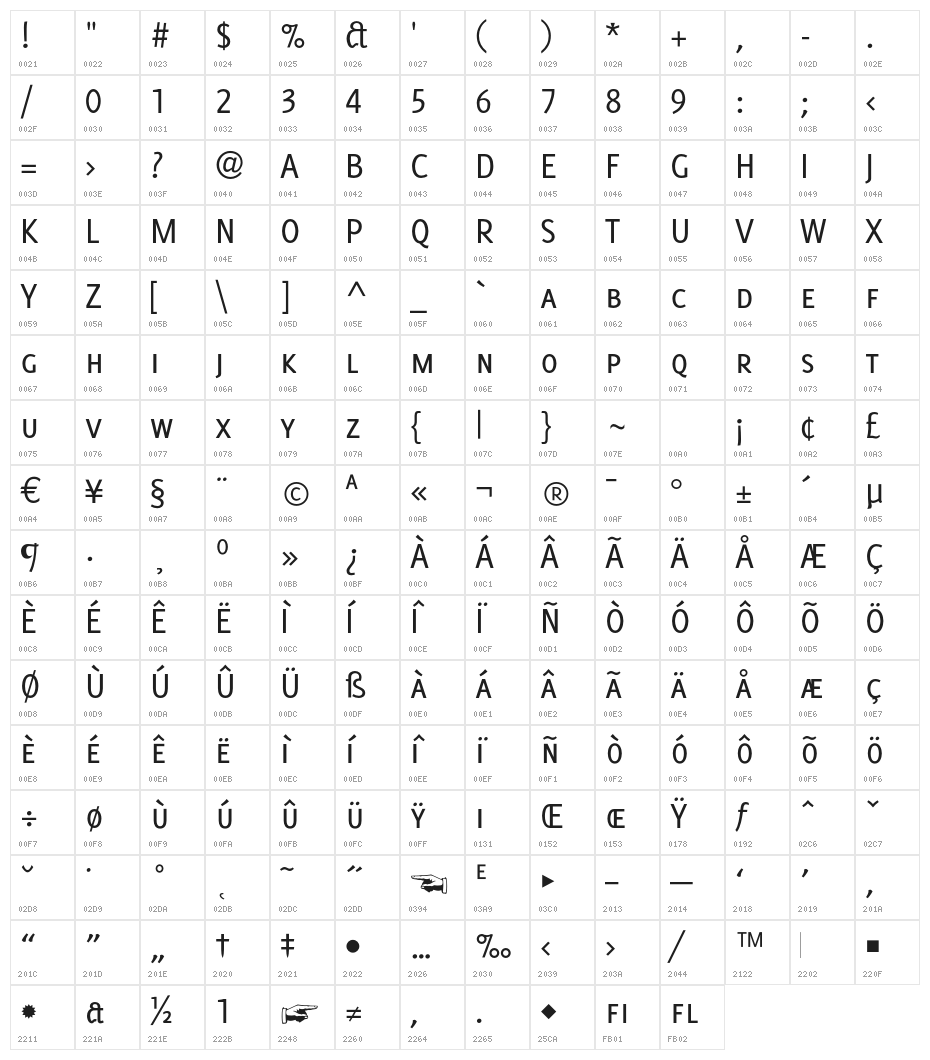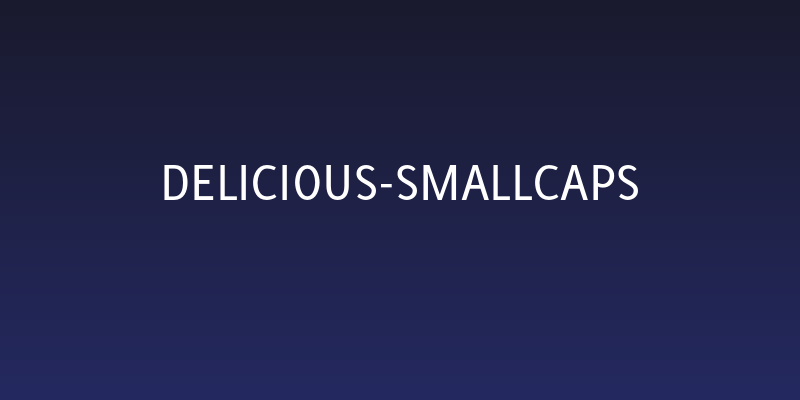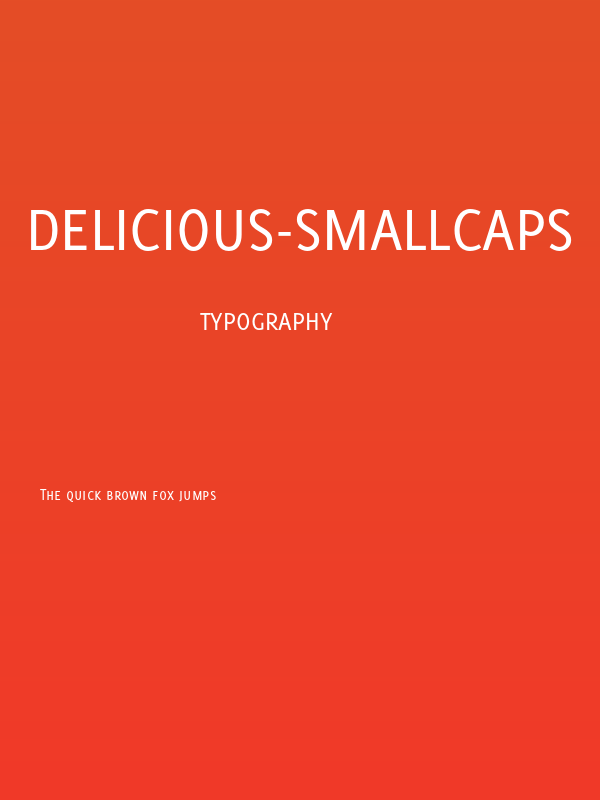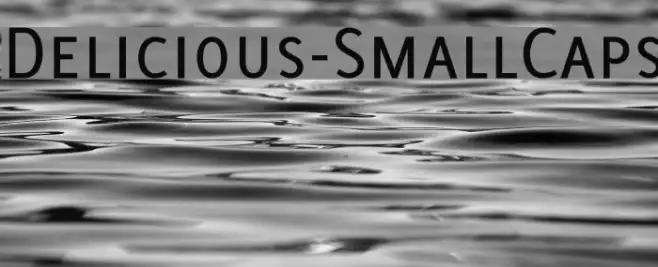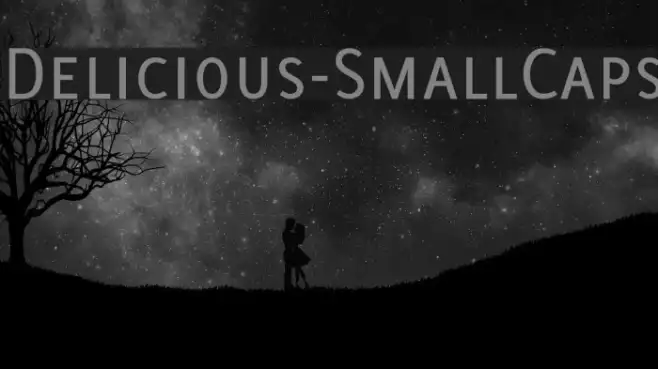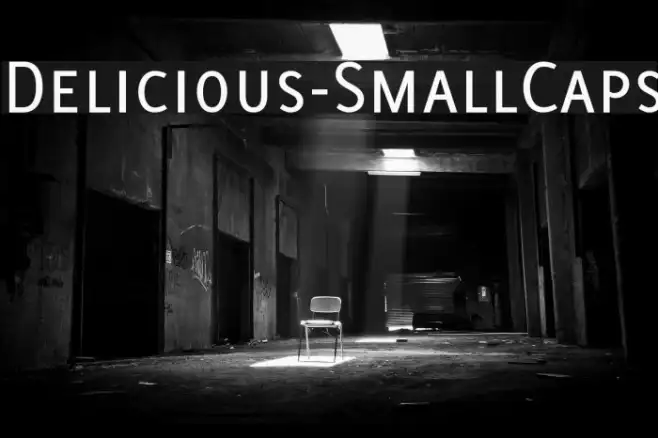
Delicious-SmallCaps Font
Delicious-SmallCaps Description
This font features a clean and modern design with a focus on simplicity and readability. The characters are uniformly structured, offering a balanced and harmonious appearance. The uppercase letters are bold and assertive, while the lowercase letters maintain a consistent style that complements the overall aesthetic. The numerals are clear and distinct, making them easily legible. Special characters are well-integrated, maintaining the font's cohesive look. This font is versatile, suitable for both digital and print media, and can be used in various design contexts.